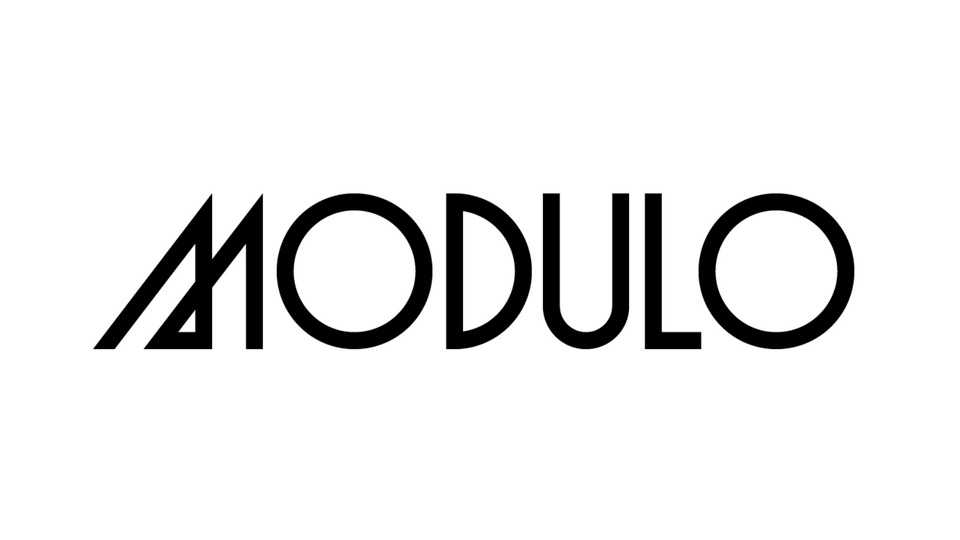
Download Modulo font, an experimental display typeface drawn from 7 basic geometrical figures modularly assembled. Several versions of each letters are available through OpenType features.
Designer: Alex Chavot